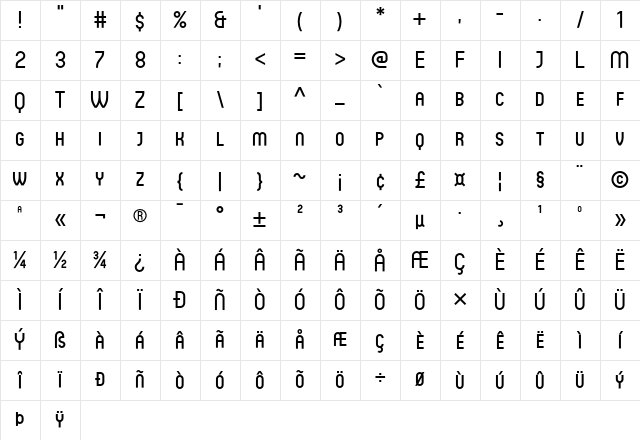
Circula Medium
Foundry: Jan Schmoeger/Paragraph
Designer: Jan Schmoeger/Paragraph
Design Context for Circula
Circula is a composed and adaptable typeface that performs quietly and consistently across a wide range of design contexts.